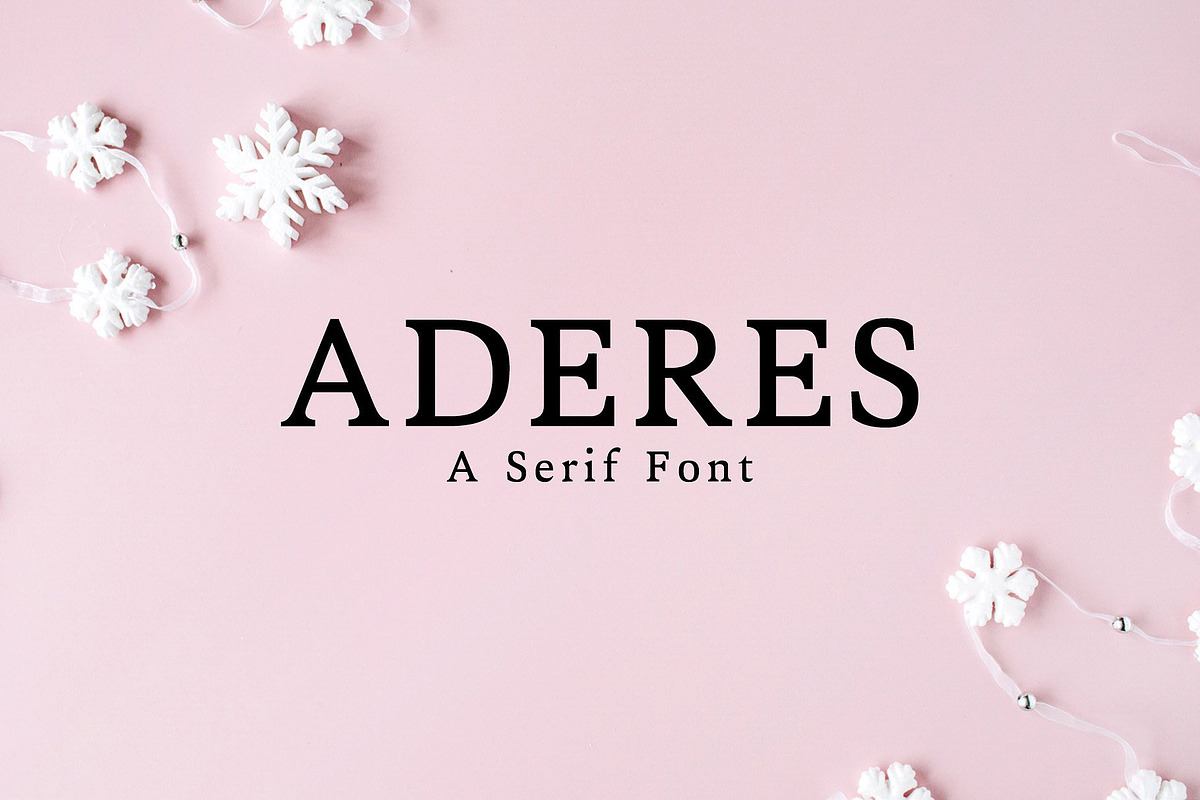
Refined, elegant, and highly versatile — Aderes Serif 2 Font Family Pack Free Download is the perfect choice for sophisticated typography. With two beautifully crafted serif styles in one pack, Aderes is ideal for branding, editorial design, packaging, fashion campaigns, and high-end web or print layouts that require a classic yet modern touch.
The Aderes Serif family features sharp serifs, balanced proportions, and stylish contrasts, providing both visual impact and timeless appeal. Each style includes uppercase and lowercase letters, numerals, punctuation, and multilingual support—making it perfect for testing diverse design applications and layout structures.